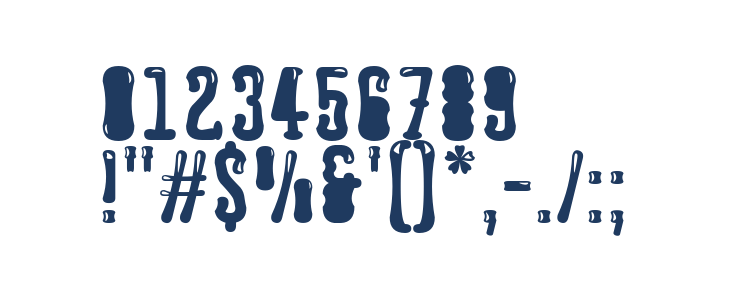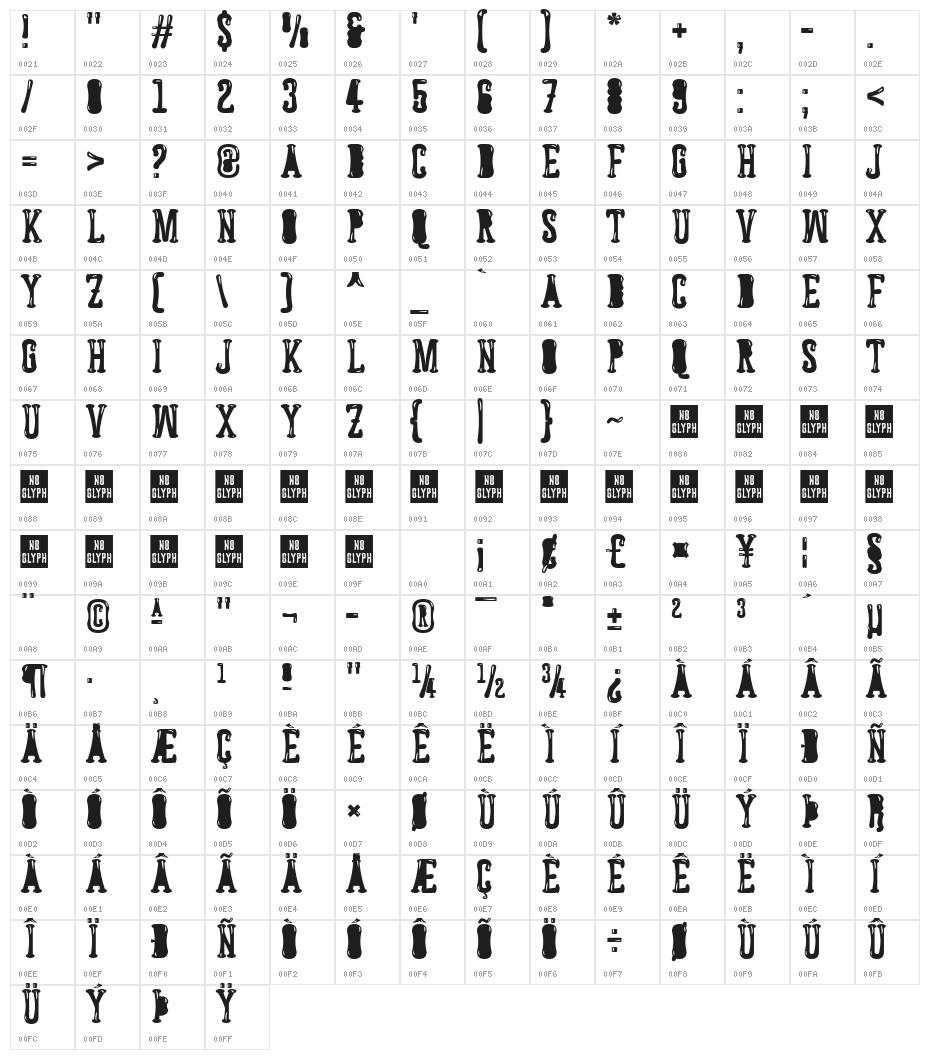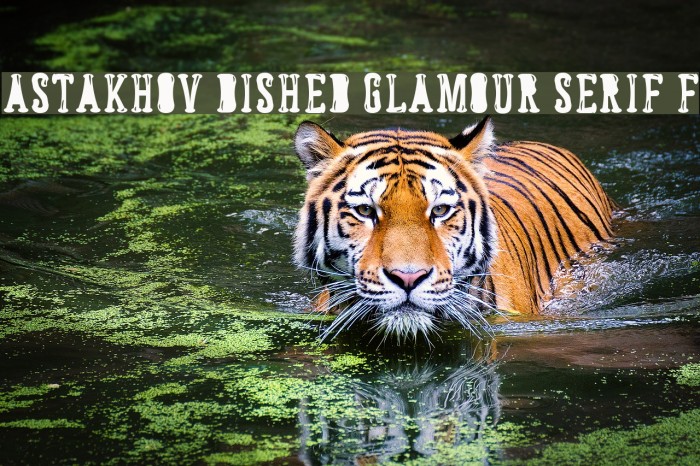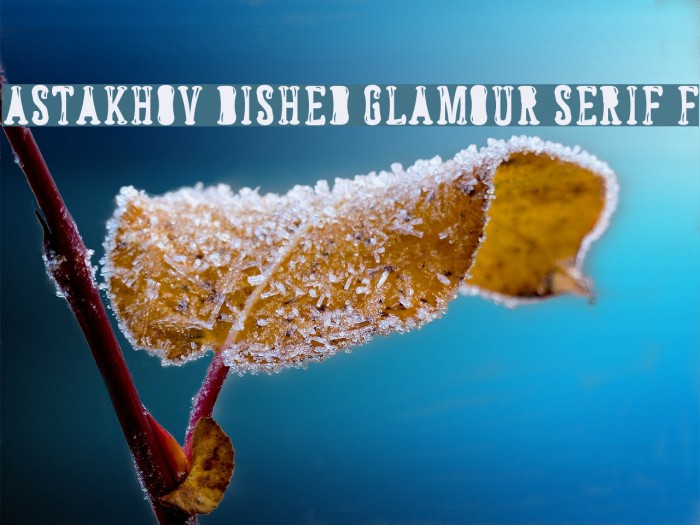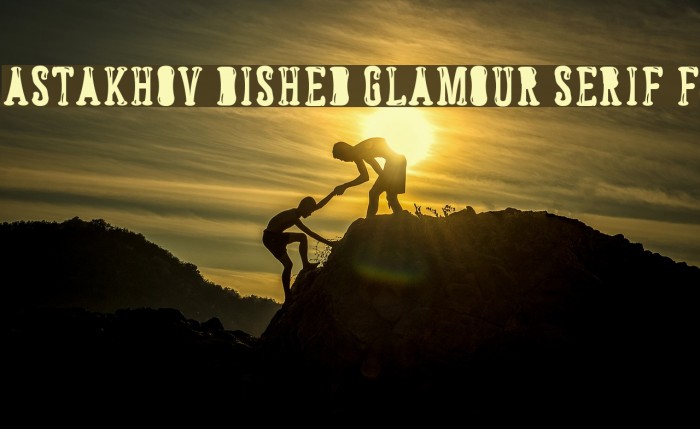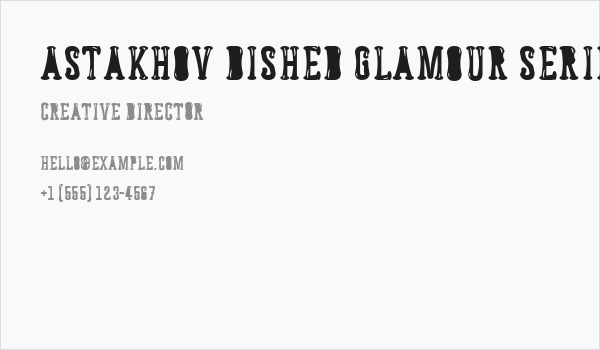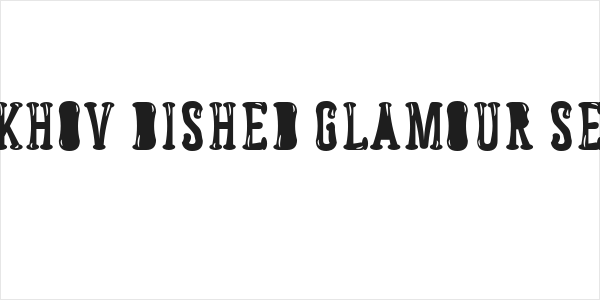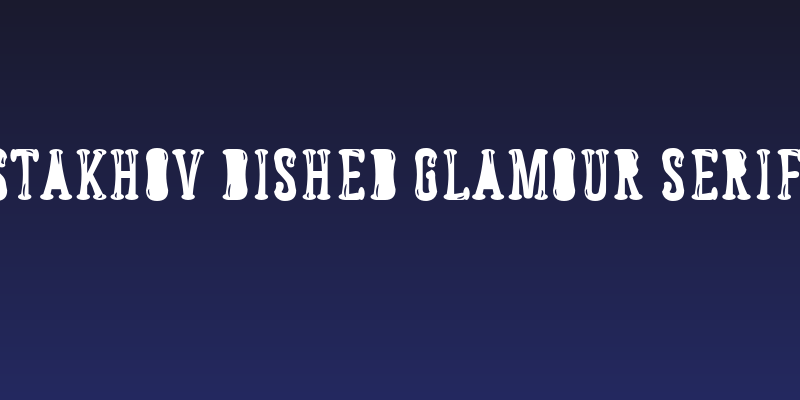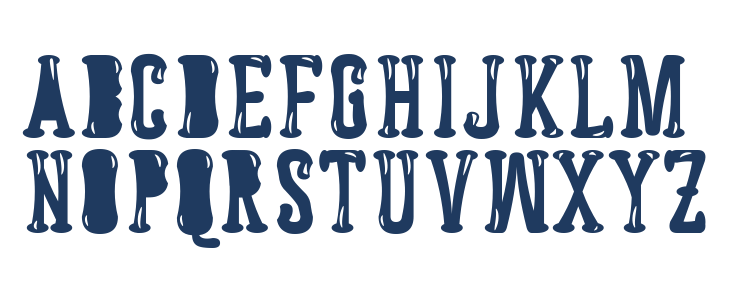
Astakhov Dished Glamour Serif F Font
Astakhov Dished Glamour Serif F Description
This font features a bold and dramatic style with thick, heavy strokes and unique, artistic serifs. The letters have a distinct, almost theatrical appearance, with exaggerated curves and flared ends that give each character a sense of movement and flair. The numbers and special characters maintain this bold style, ensuring consistency across all glyphs. The overall design is eye-catching and makes a strong visual impact, suitable for projects that require a touch of glamour and sophistication.
| Proposed Projects | Ideal for use in posters, headlines, branding, and any design project that requires a bold and glamorous touch. |